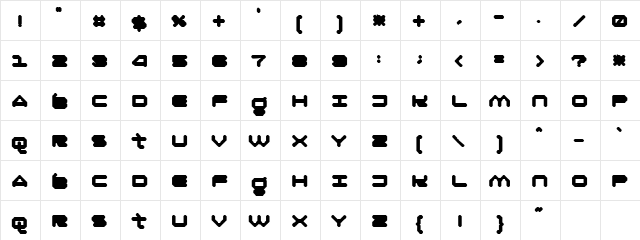
Oliray41 Normal
Design Context for Oliray41 Typeface
Oliray41 is a composed and adaptable typeface that performs quietly and consistently across a wide range of design contexts.